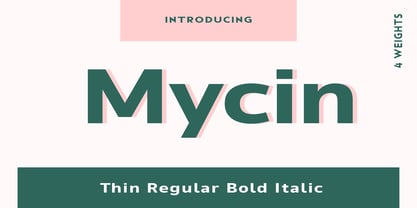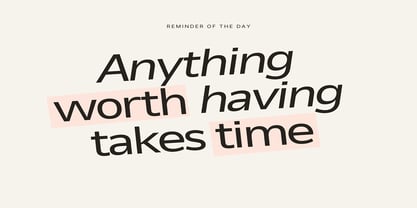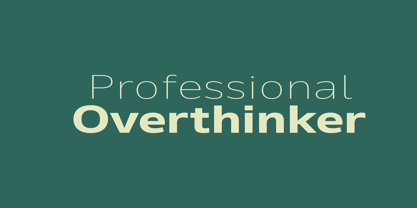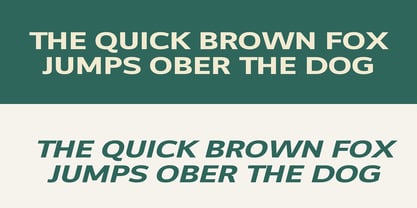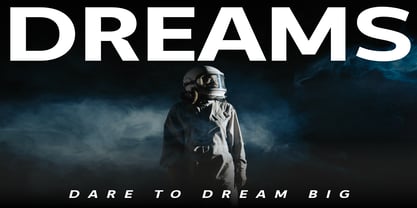
Mycin
von Dream Font
Die Schriftfamilie Mycin wurde von Nancy Mazzei entworfen und von Dream Font veröffentlicht. Mycin enthält 4 Stile und Familienpaketoptionen.
Introducing Mycin a sleek and modern sans-serif font family inspired by the friendly elegance of Sans. With gently rounded edges and open, inviting letterforms, Mycin is designed for clarity, legibility, and visual comfort in a wide variety of creative projects. The font comes in 4 versatile styles—from Thin to Bold Italic—making it ideal for branding, editorial design, UI/UX, advertising, and multilingual text. Let Mycin transform your creative vision from intangible to tangible with ease and sophistication.
Designer: Nancy Mazzei
Herausgeber: Dream Font
Foundry: Dream Font
Eigentümer des Designs: Dream Font